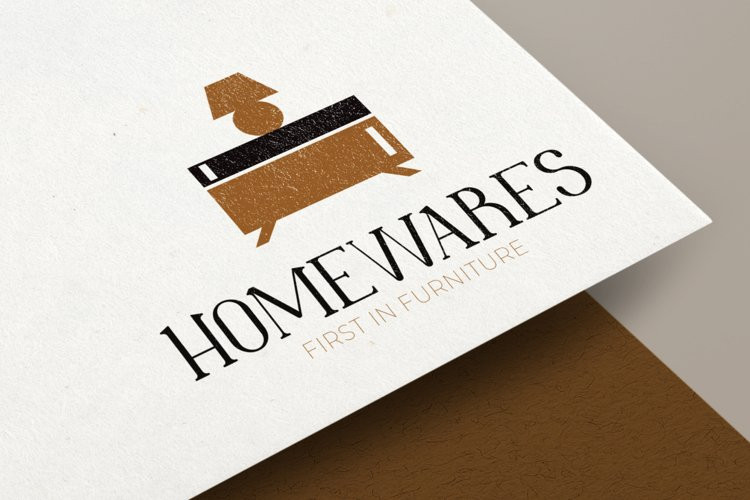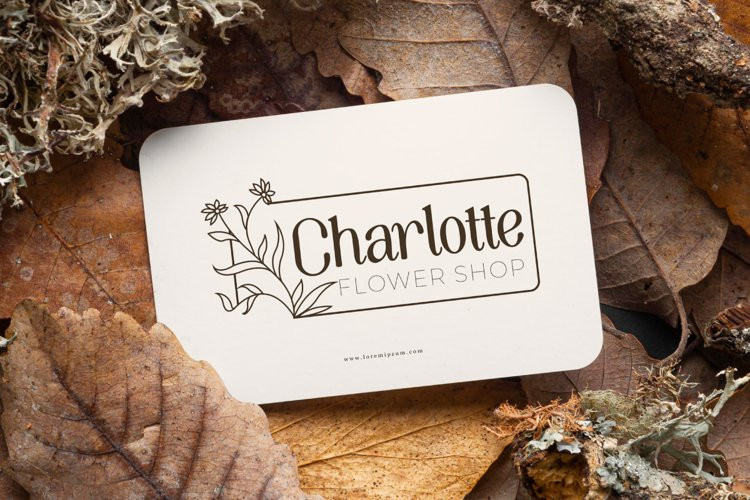
Mazy Theory Font
Mazy Theory Font is a elegant serif font family with two styles. The style of this font are classy, feminine, simple and modern. Great for logo brandings, headlines, products packaging, signage etc. Mazy Theory Font inspired by a beautiful handwritten style made into a display serif font, making your designs stand out. The font will be awesome for many industries including : cosmetic, fashion, florist, furniture, etc